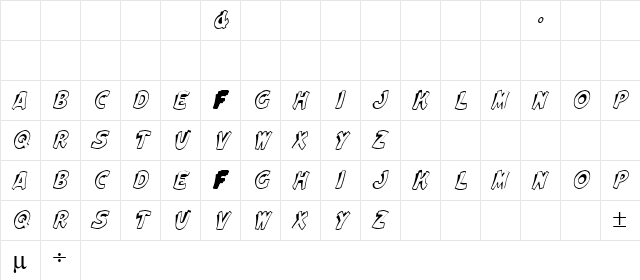
Stewart1 Italic Regular
Design Context for Stewart1 Italic Typeface
Stewart1 Italic is a composed and adaptable typeface that performs quietly and consistently across a wide range of design contexts. The slanted form adds forward momentum and visual energy.